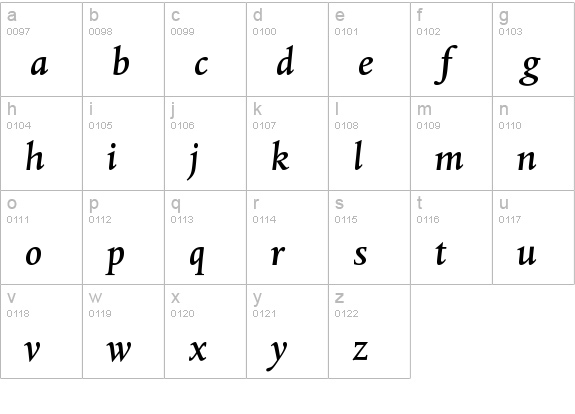
DTLAlbertinaTMedium Italic Font Details
DTLAlbertinaTMedium Italic is a distinctive, italic variant in the DTLAlbertinaTMedium typeface family \xE2\x80\x94 well suited to design and typography projects.
The DTLAlbertinaTMedium Italic font is a stylish and versatile typeface that exudes elegance and sophistication. Its sleek and flowing design makes it perfect for adding a touch of class to any project. Whether you're working on a formal invitation, a professional presentation, or a high-end branding project, this font will elevate your design to the next level. What sets DTLAlbertinaTMedium Italic apart is its seamless balance of tradition and modernity, making it a timeless choice for a wide range of applications. The italic style adds a touch of flair and dynamism to your text, making it stand out while maintaining a sense of professionalism. Best of all, DTLAlbertinaTMedium Italic is available for free download at FontsMarket.com. This means you can enjoy the beauty and versatility of this font without breaking the bank. Whether you're a seasoned designer or just starting out, this font is a valuable addition to your toolkit. Download DTLAlbertinaTMedium Italic today and take your designs to the next level.